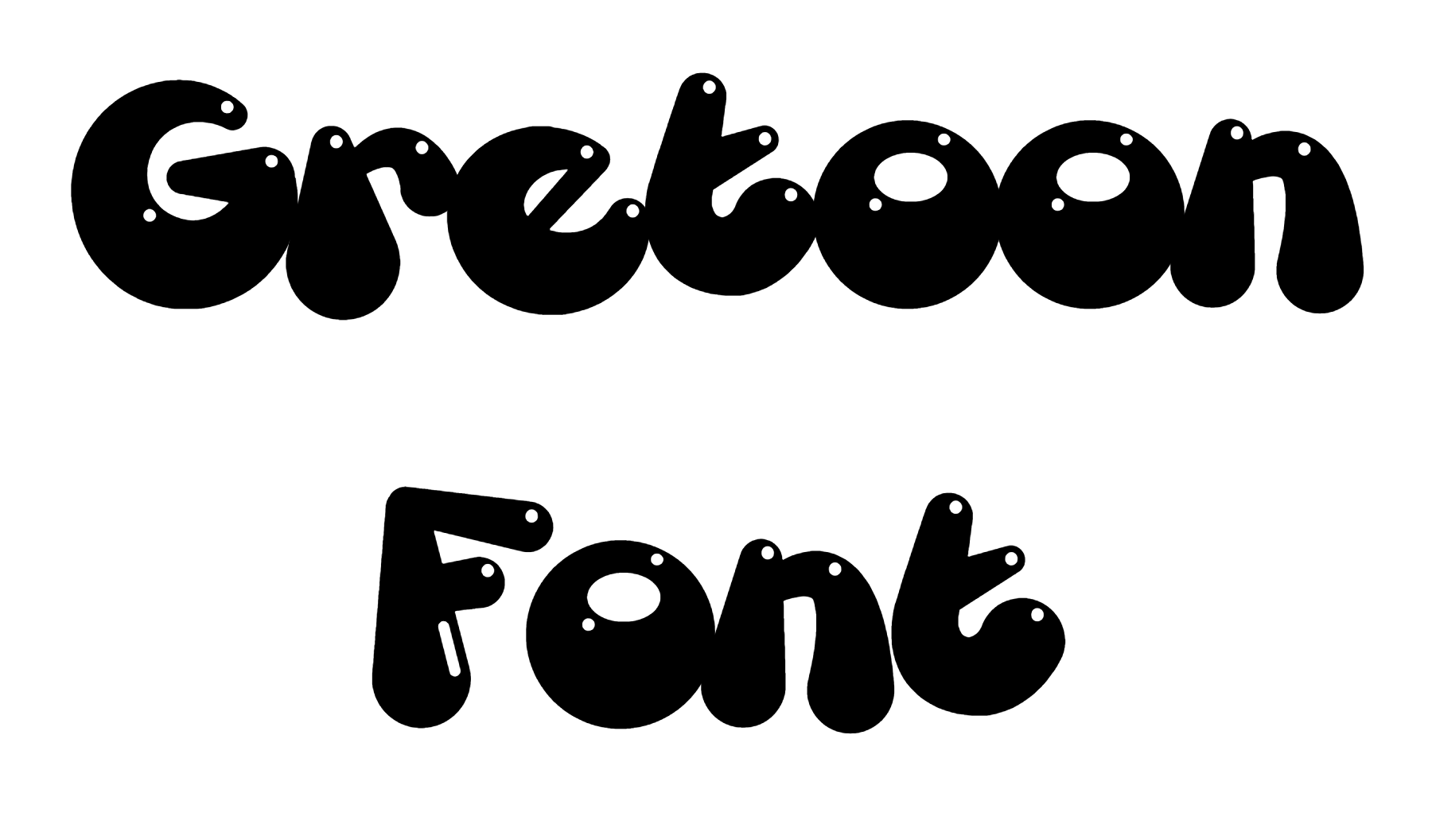
Gretoon
Gretoon is a cartoon font created by Måns Grebäck (2011). It has a cheerful, hand-drawn look that makes people smile before they even read the words. You can download it for free and test it with your own words in the preview above.
What You Can Type With Gretoon
Gretoon covers the full alphabet in upper and lowercase, plus all ten numbers, so you can set names, dates and prices without switching fonts. Common punctuation such as &, !, ? and @ is included as well. It also has the accented letters you need for Spanish, French, German, Portuguese and Italian.
Where Gretoon Works Best
Designers usually reach for fonts like Gretoon when they're making kids' books, birthday invites and fun YouTube thumbnails. The file has no kerning data, so in logos and big titles check pairs like AV, To and Wa and tighten the spacing by hand. Cartoon fonts are great for short, fun lines. If you place it over a busy photo, add a thick outline or a drop shadow so it stays readable.
Who designed Gretoon font?
Does Gretoon support accented letters?
Yes. Gretoon includes the accented letters needed for Spanish, French, German, Portuguese and Italian, so it works for more than just English.